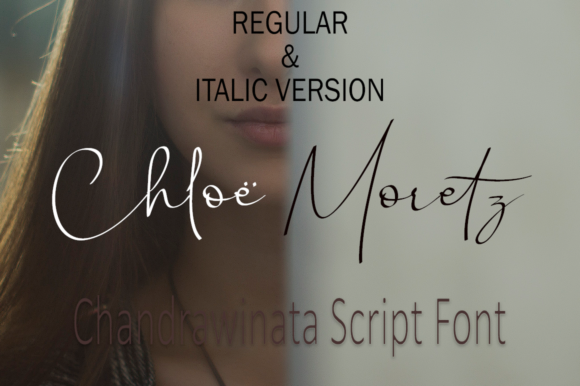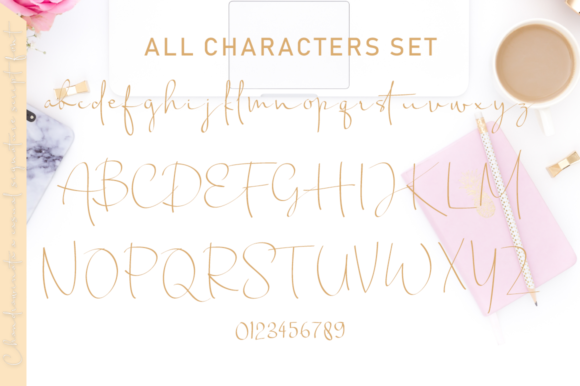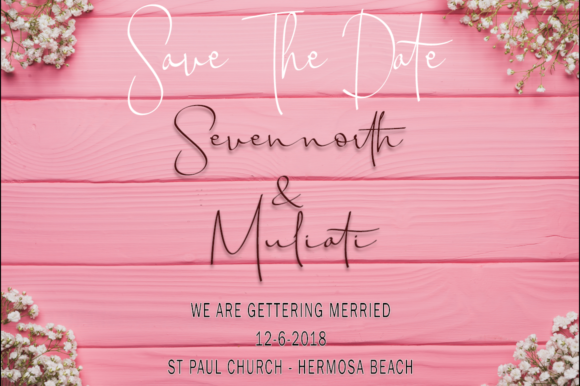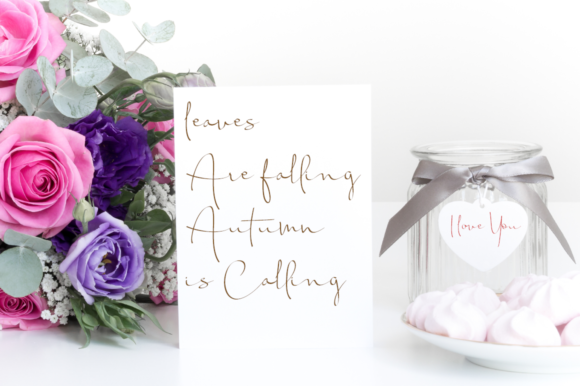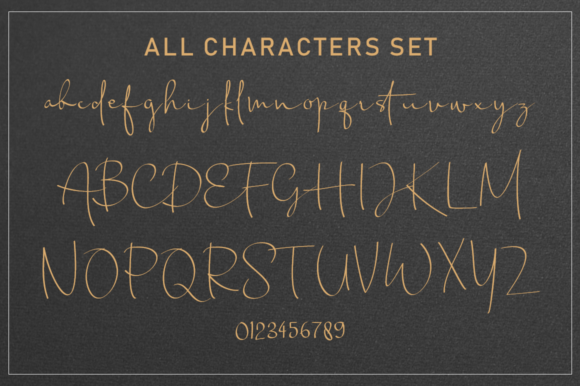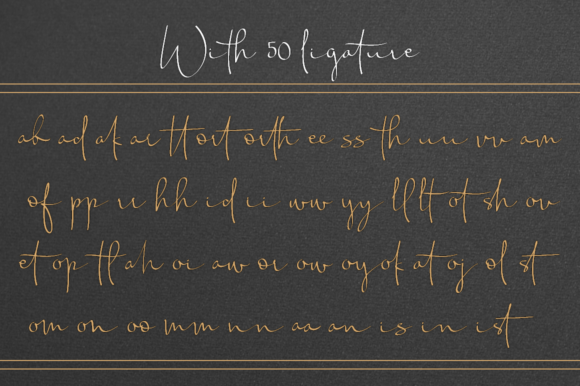
The Perfect Blend of Style and Elegance: Discover the Chandrawinata Font
Have you ever been working on a design project, and suddenly, you’re stuck trying to find the perfect font to convey the right message? It’s a common struggle many designers face. You want your design to stand out, but at the same time, it needs to be visually appealing and professional. That’s where the Chandrawinata Font comes in – a stylish, casual, signature script font that’s sure to elevate your design to the next level.
This beautiful font is perfect for adding a touch of elegance to your design, whether it’s a wedding invitation, a logo, or a social media post. With its unique and sophisticated style, the Chandrawinata Font is a valuable addition to any designer’s toolkit. It’s versatile, easy to read, and instantly adds a level of sophistication to any design. Whether you’re a seasoned designer or just starting out, the Chandrawinata Font is a great choice to consider.
Chandrawinata Font Key Features
- Font Family: Chandrawinata Font is a unique and elegant font designed for various typography needs.
- Unique Characteristics: Features a mix of modern and traditional elements, with distinctive letterforms and subtle flair, making it perfect for luxury and high-end branding.
Chandrawinata Font Review
First off, I want to say that the Chandrawinata Font has some great qualities that make it stand out. ✨ It’s unique and has a lot of character, which is perfect for designers looking to add some personality to their projects. The font’s script-like appearance also makes it ideal for creative and artistic projects.
Some of the things that work well with the Chandrawinata Font include:
- ✨ Unique and creative script-like appearance
- ✨ Ideal for artistic and creative projects
However, there are some limitations to consider. ⚠️ The font may not be suitable for projects that require a more formal or traditional look. Additionally, the font’s connectivity can be a bit irregular in certain font sizes, which may affect readability.
Overall, the Chandrawinata Font is a great choice for designers who want to add some flair to their projects. While it may not be suitable for every project, it’s definitely worth considering for creative and artistic endeavors.
Rating: 4/5 stars
For best results, use Chandrawinata Font for headings and titles, as it is a decorative script font.
For best results, use Chandrawinata Font for creative projects, such as invitations, posters, and social media graphics.
For best results, use Chandrawinata Font for titles, headings, and creative elements in your presentations and documents.
Chandrawinata Font is ideal for:
- Food and drink branding
- Event promotions and posters
Remember to use Chandrawinata Font in moderation, as it can be quite ornate. Balance it with simpler fonts for best results.